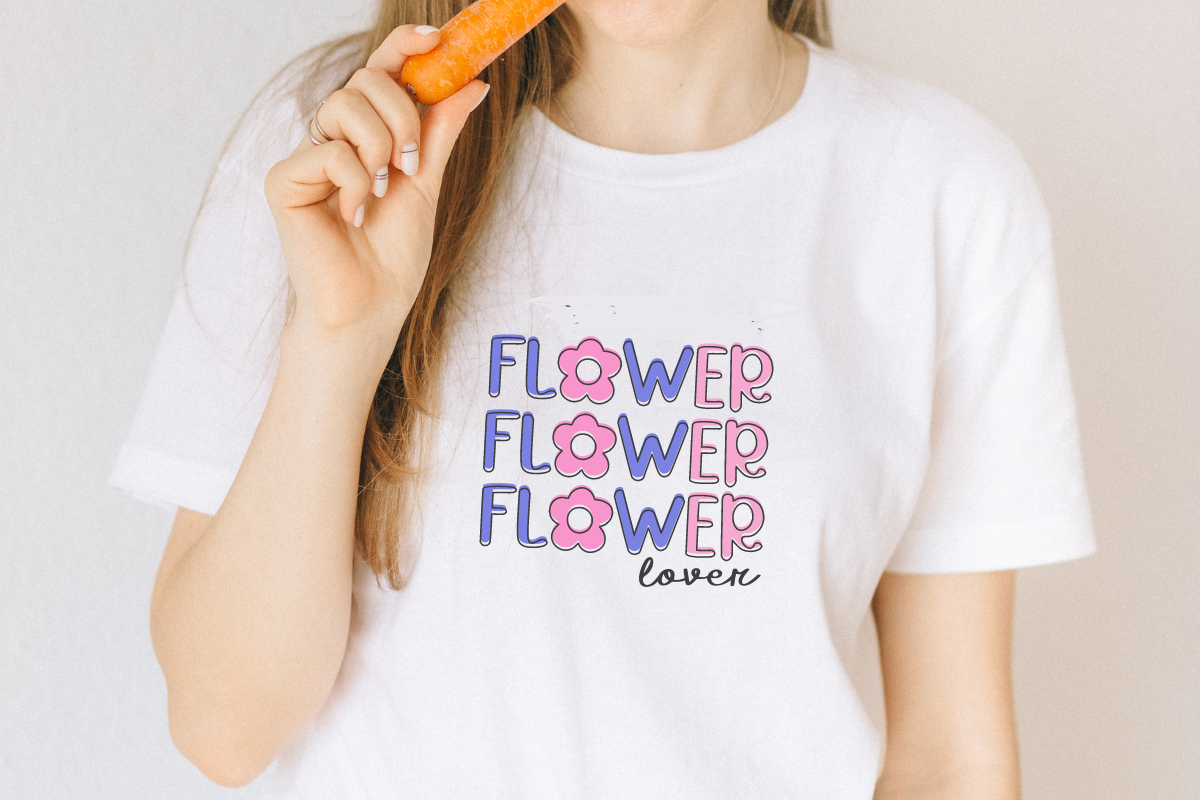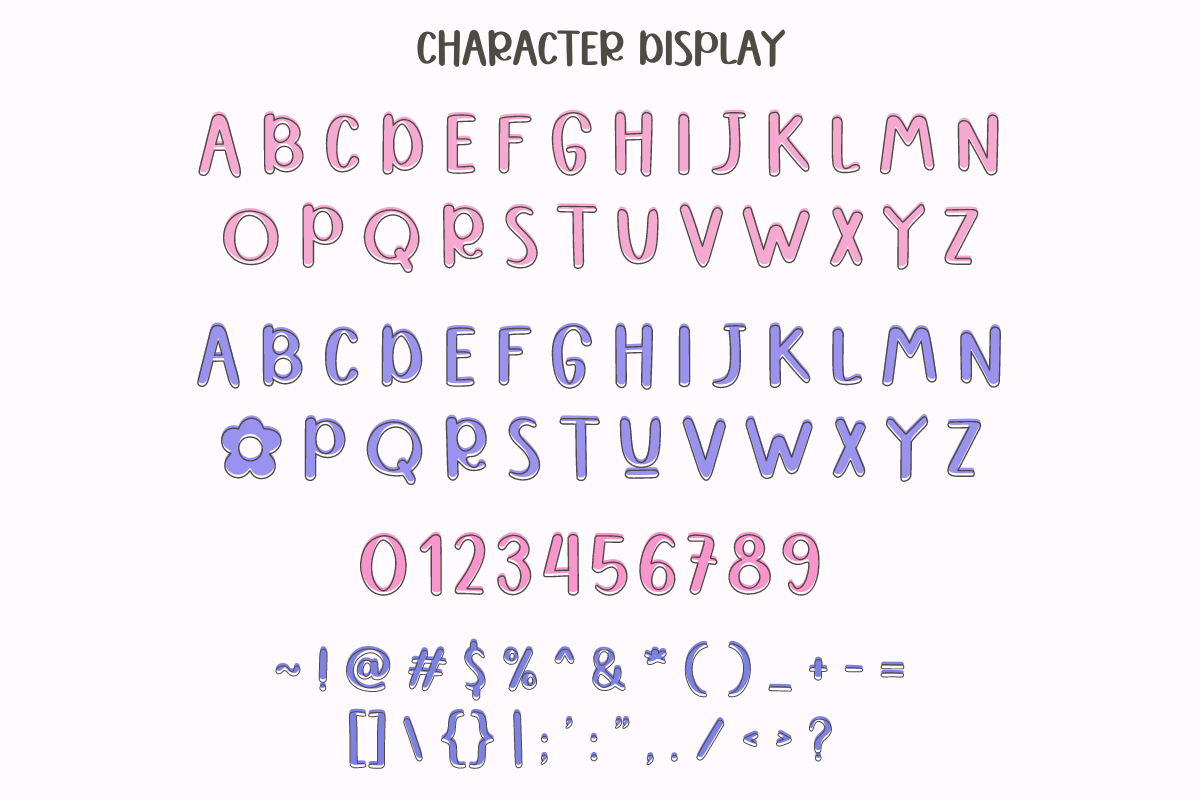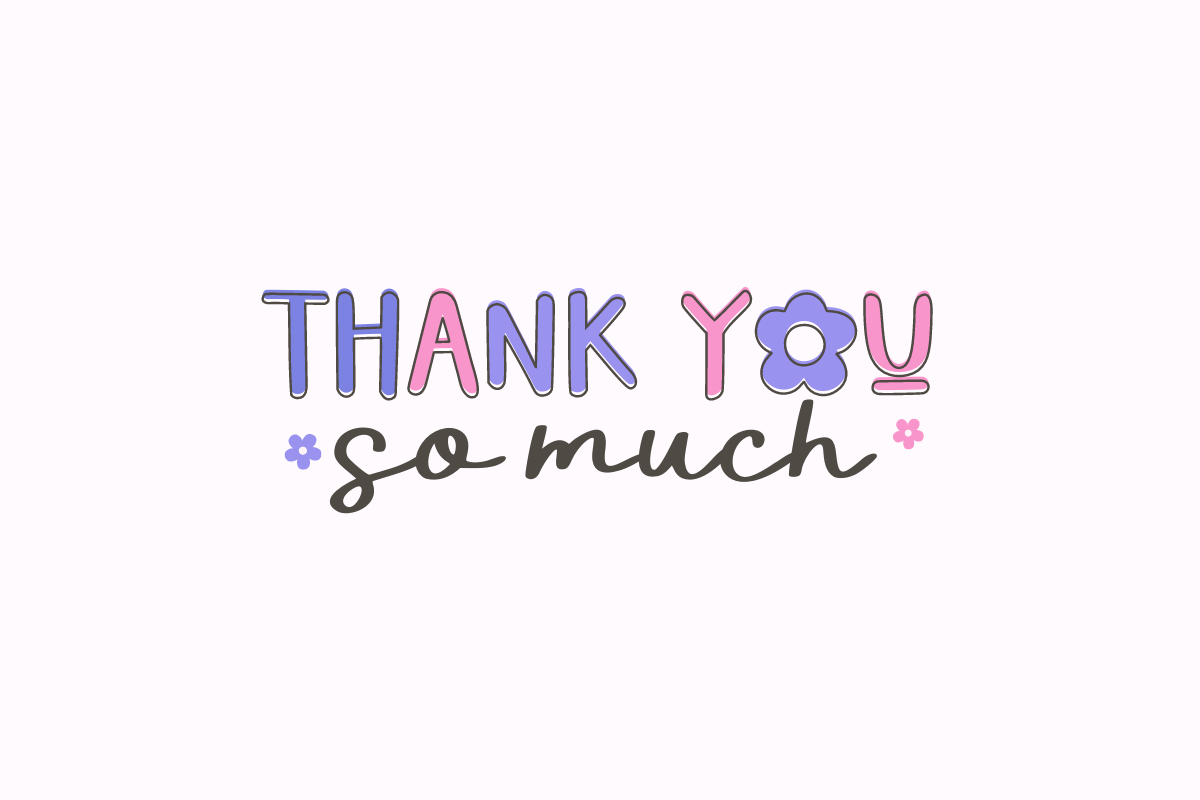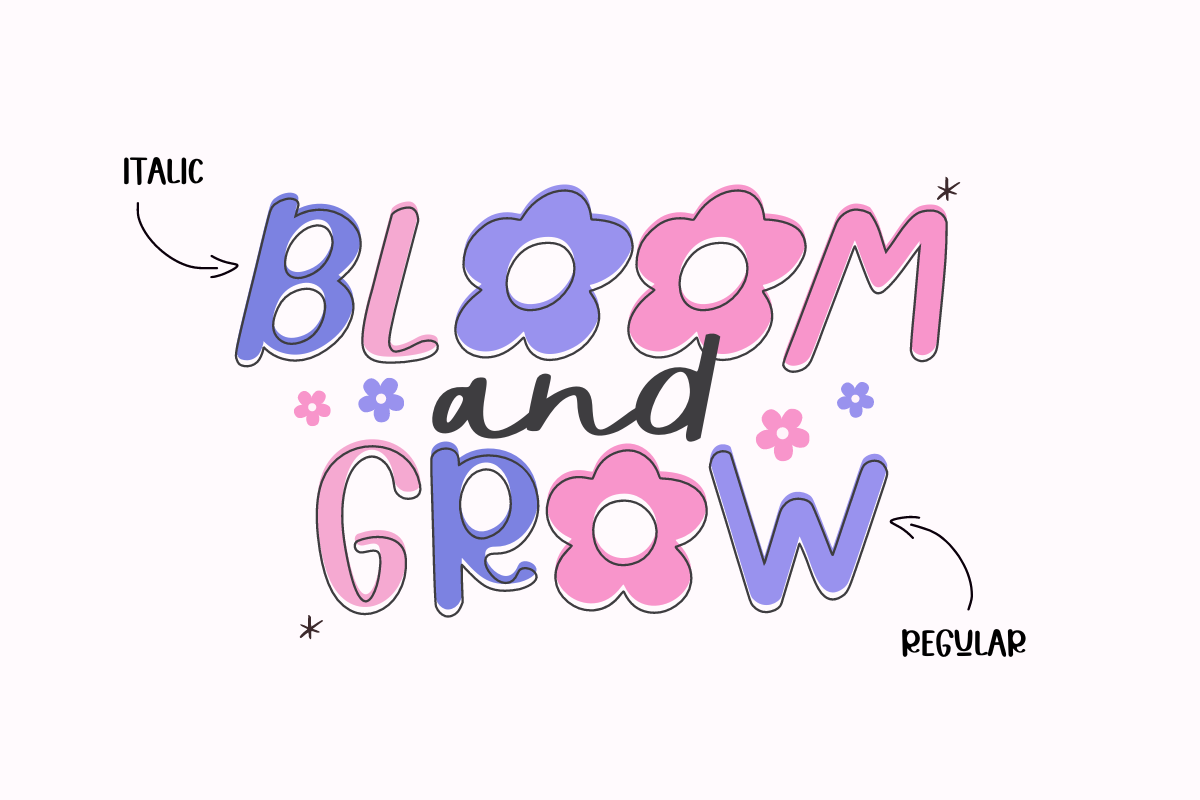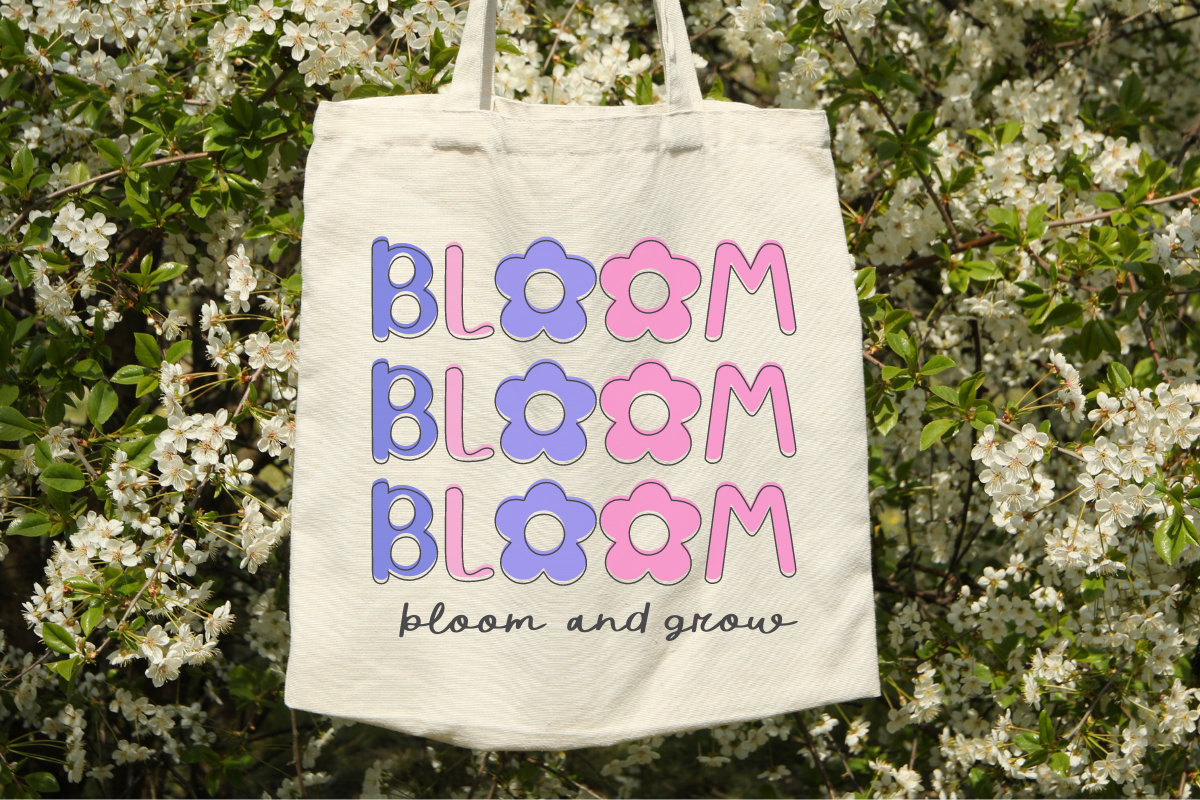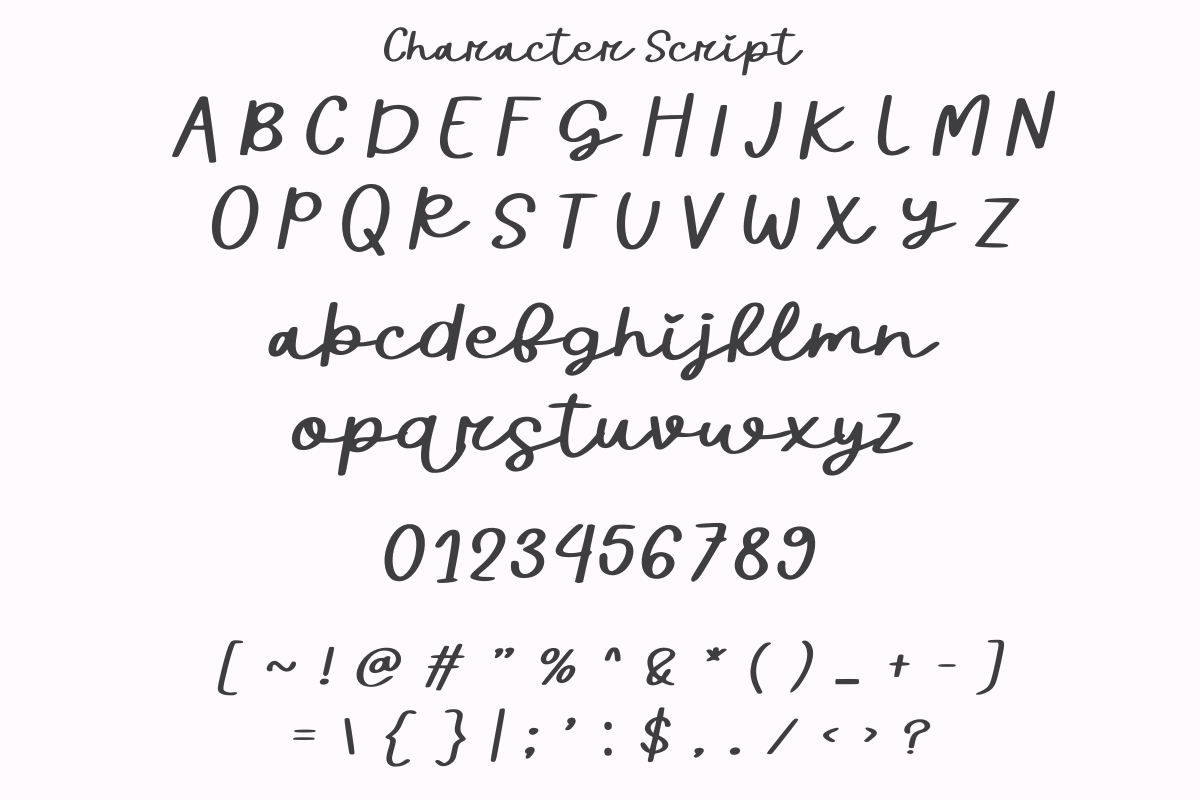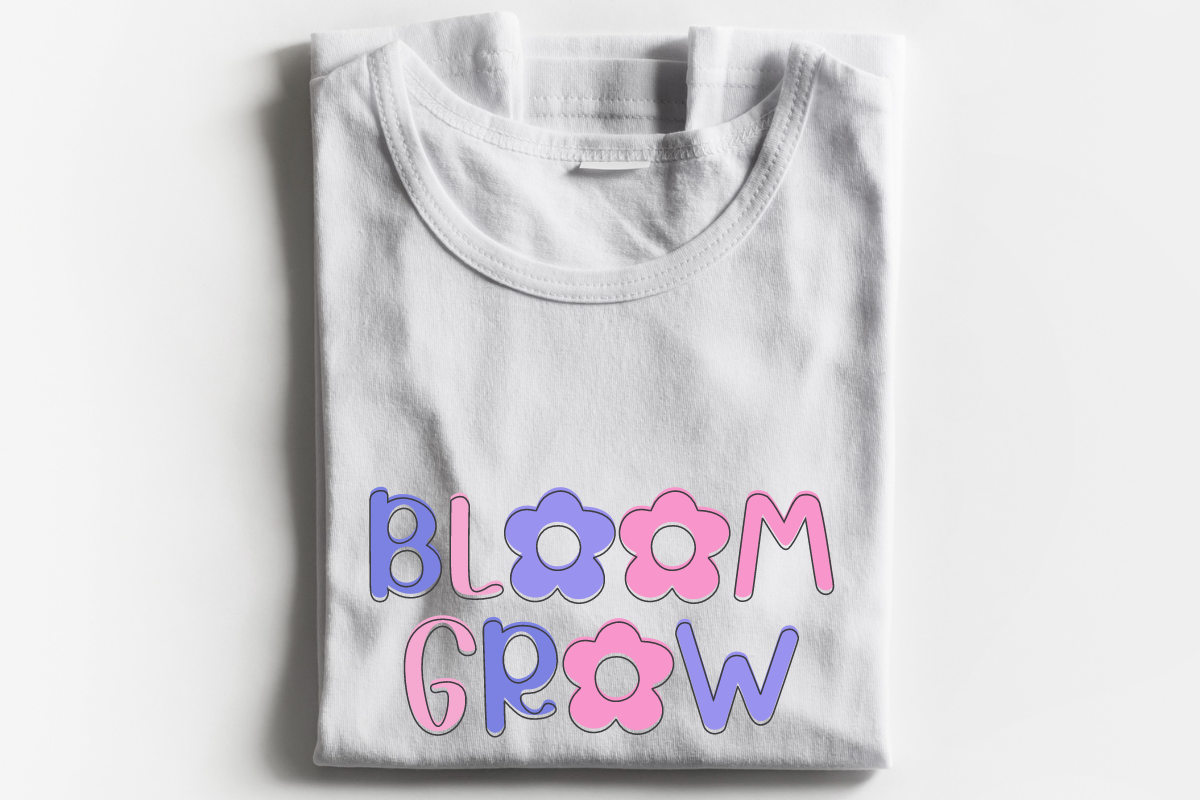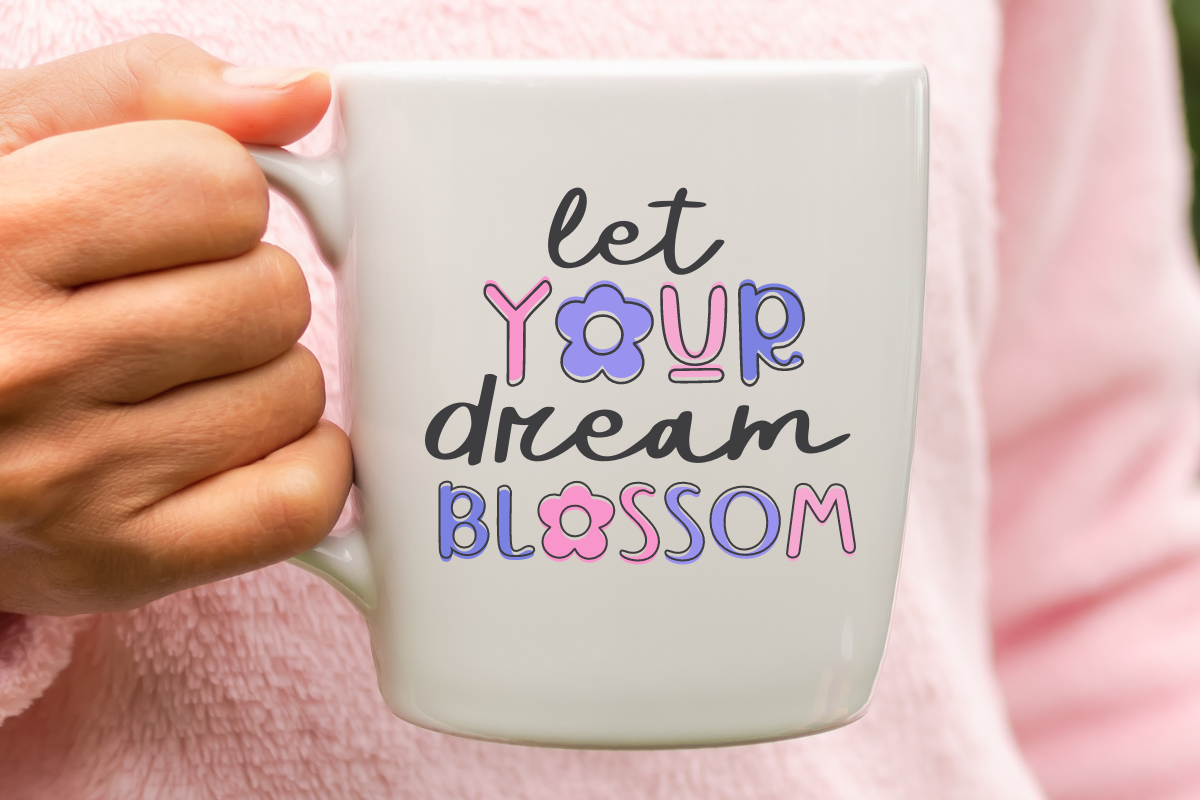
Blooming Dream Duo
looming Dream font duo ushers in a delightful and whimsical combination of handwritten display and script characters. Basking in the intoxicating blend of lovable charm and elegant beauty, these fonts effortlessly animate your crafts and breathe a unique air of personalization into t-shirts, birthdays, weddings, and notable occasions into unforgettable memoirs.
With its vast universal appeal, Blooming Dream elegantly enhances packaging, endowing hoodies and mugs with a vivacious vibe and the quotes with an exquisitely poised flair. This enchantingly engaging set of fonts lends a tender handwritten touch to greeting cards, thereby making your gift exceptionally heartwarming. With Blooming Dream, allow your creativity to glisten in the limelight, making every creative endeavor of yours truly outstanding.